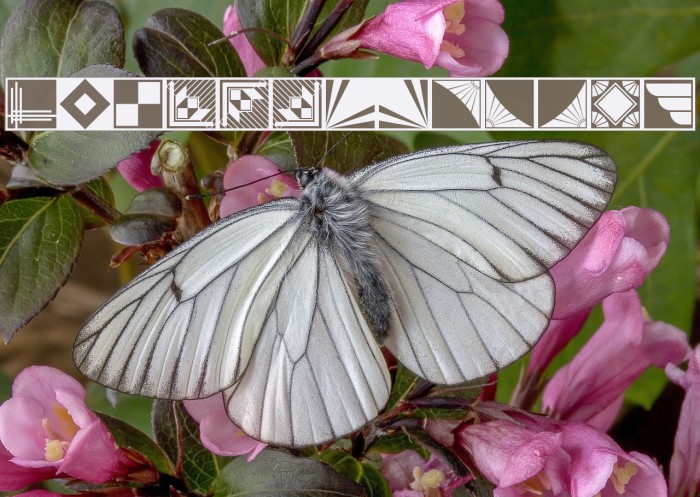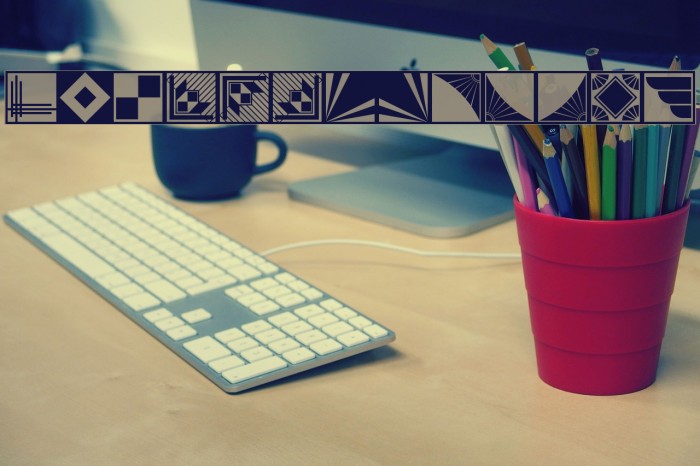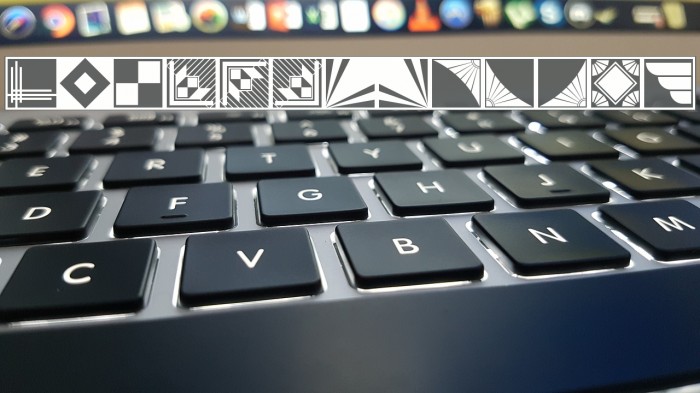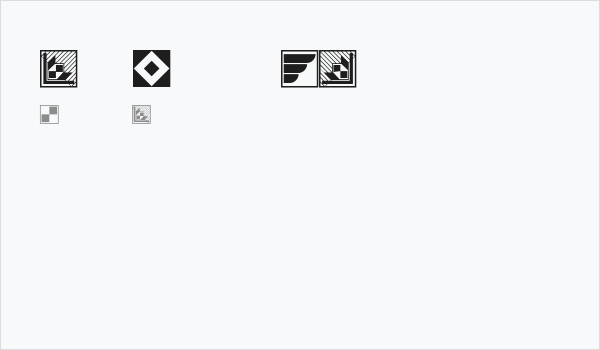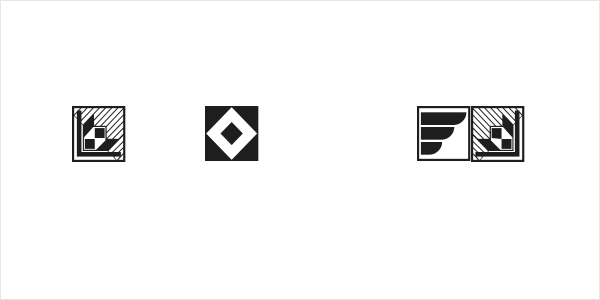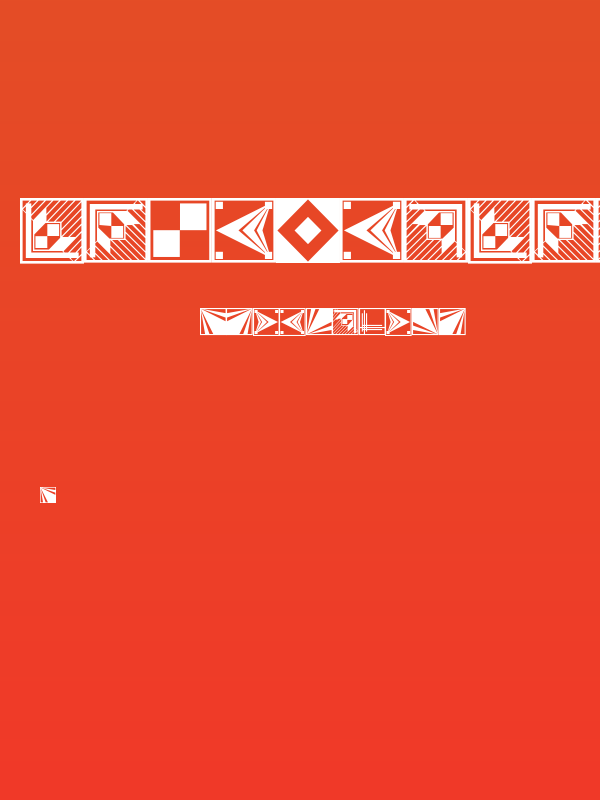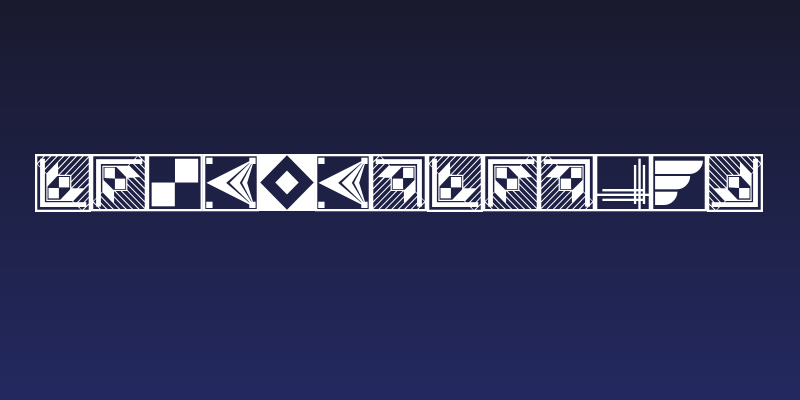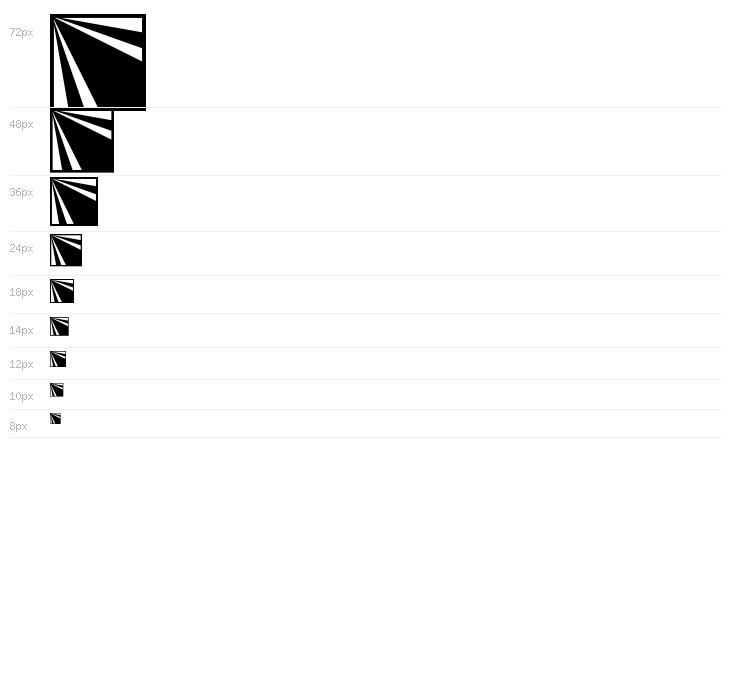
DecoBordersNF Font
DecoBordersNF Description
A decorative typeface featuring intricate geometric and symmetrical border designs, heavily inspired by Art Deco motifs. Each character is a unique ornamental pattern, primarily composed of bold black and white shapes, lines, and angles.
| Overall Style | Decorative, Vintage, Art Deco |
| Use Case | Borders, Frames, Decorative accents |
| Proposed Projects | Invitations, certificates, decorative frames, posters, vintage-themed branding, packaging, and digital scrapbooking. |